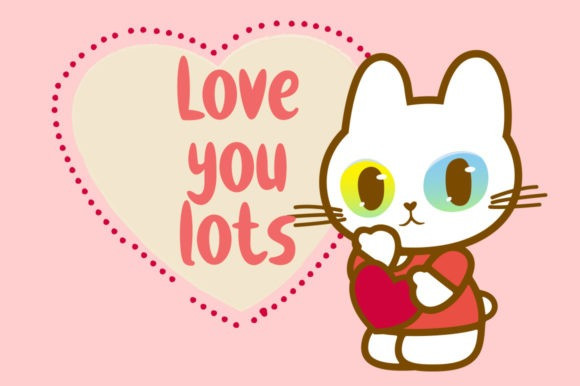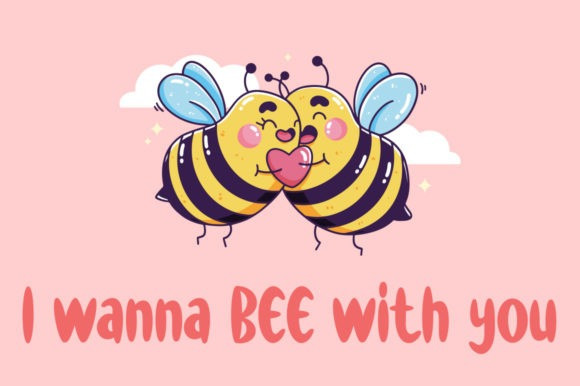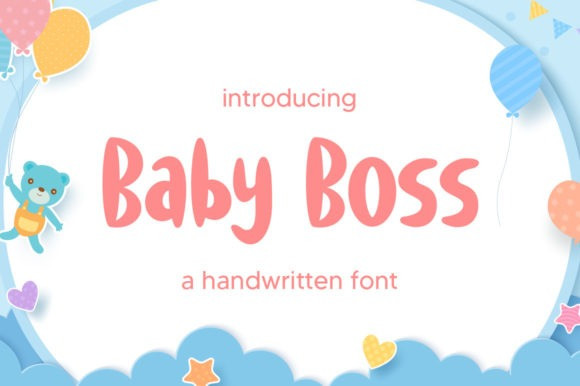
Baby Boss Font
Baby Boss Font is a cool, trendy and bold display font. Whether you’re looking for fonts for cartoon titles or calligraphy scripts for DIY projects, this font will turn any creative idea into a true piece of art!